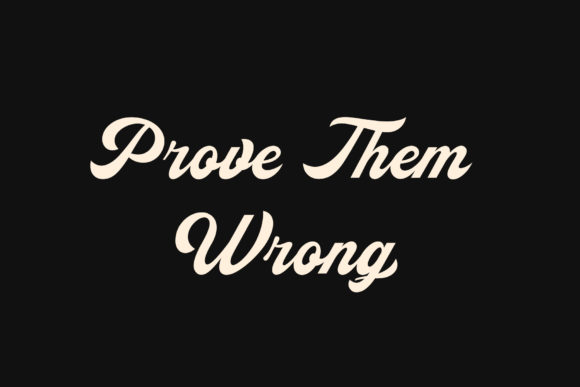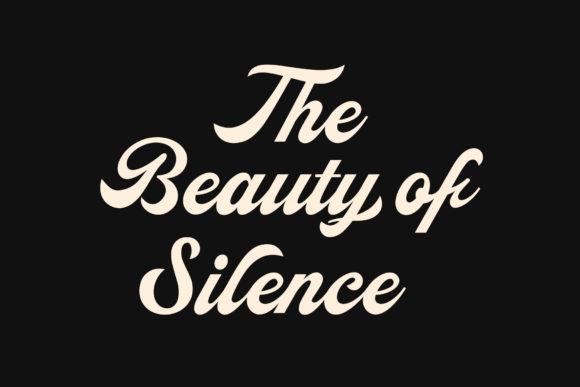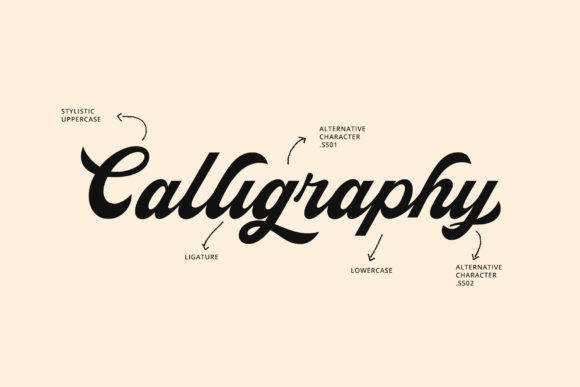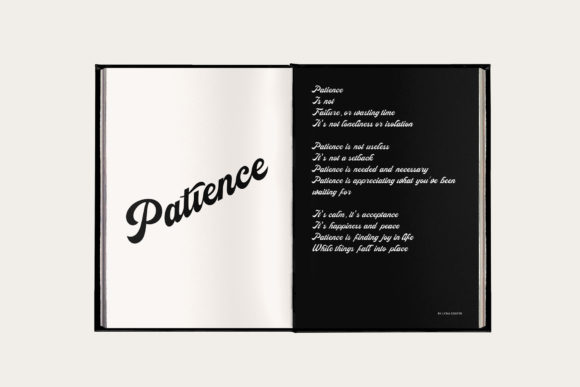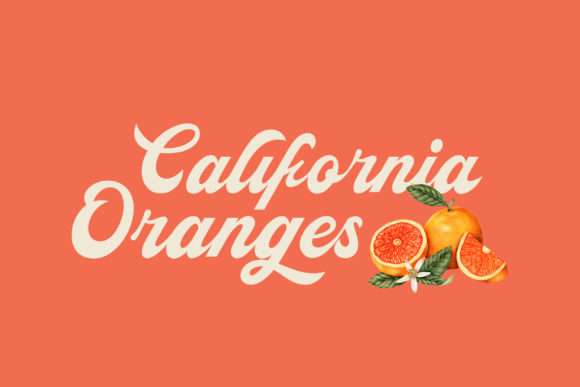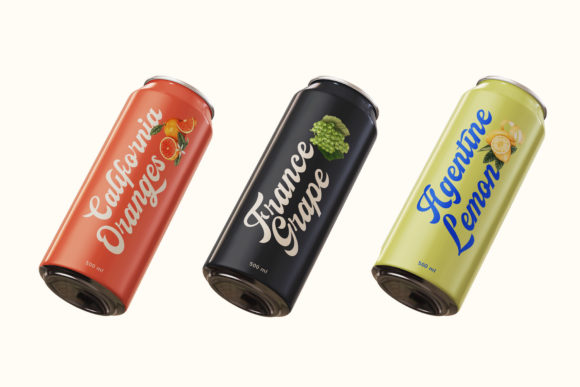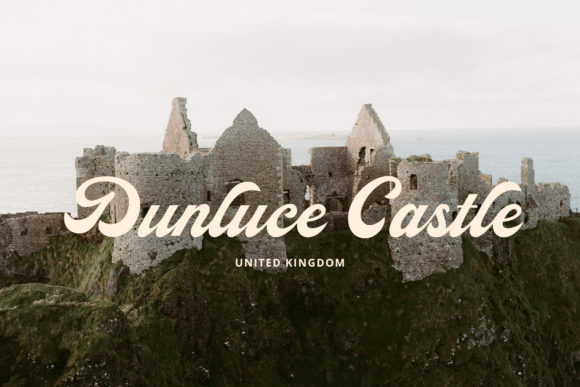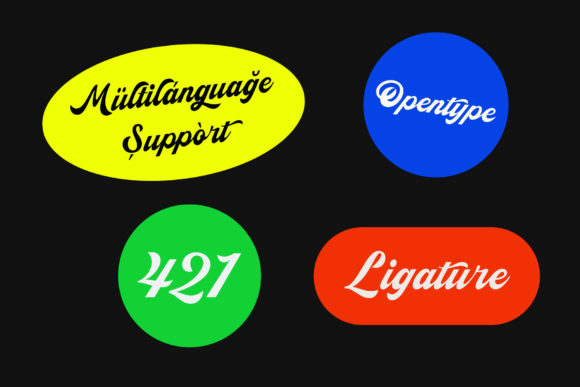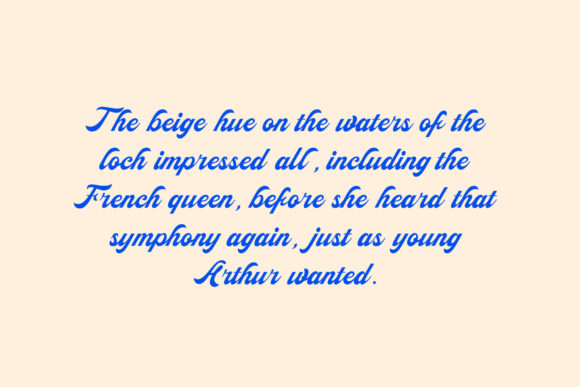
Ashglen Script Font
About Ashglen Script Font
Ashglen Script is a unique and elegant handwritten font. It looks beautiful on a variety of designs requiring a personalized style, such as wedding invitations, thank you cards, weddings, greeting cards, logos and so on.